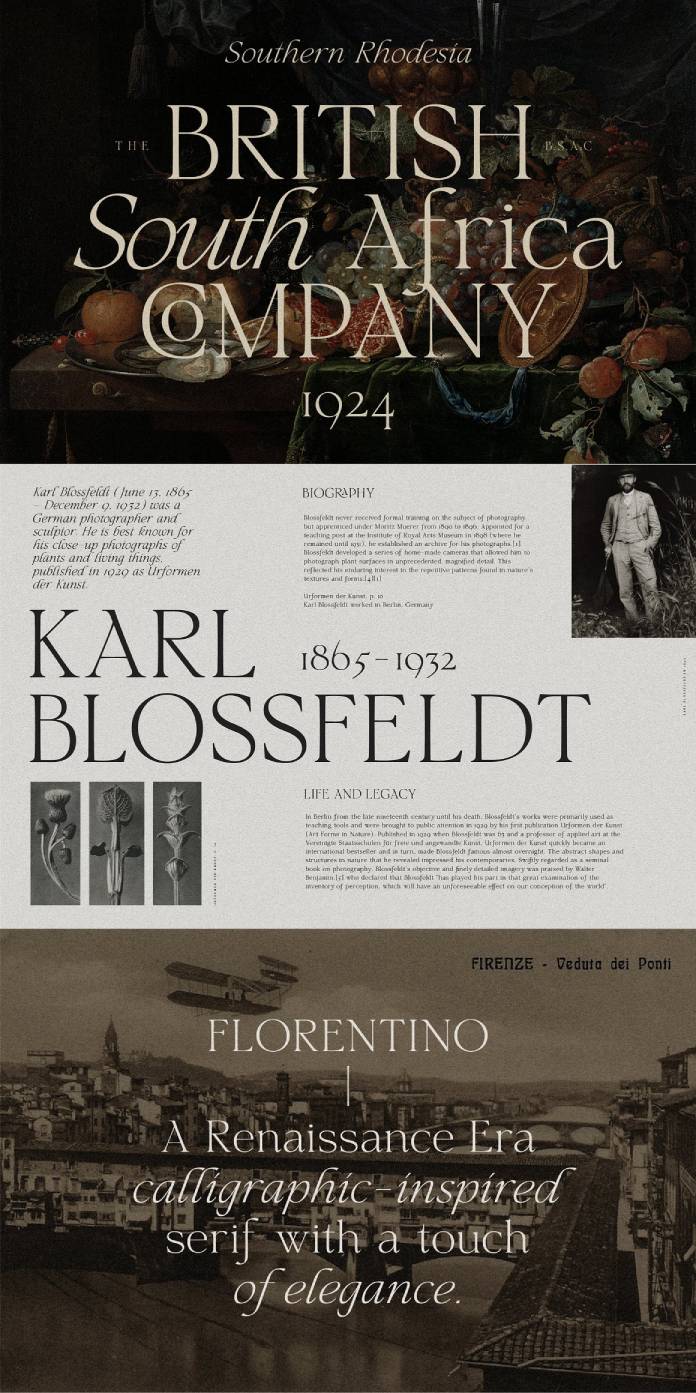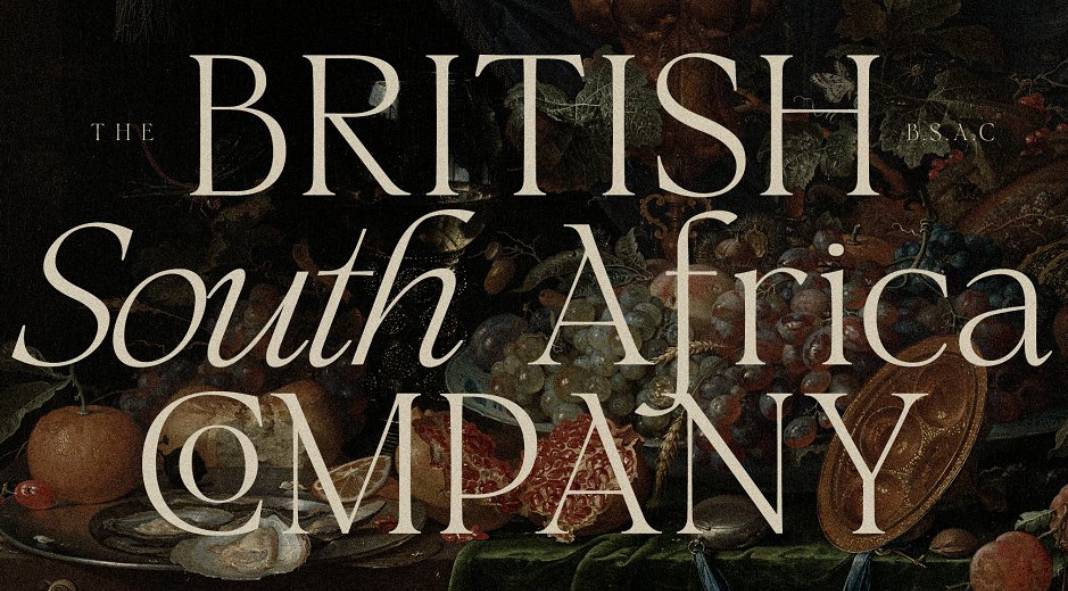
Say hello to Florentino, a classic serif font by Harmonais Visualm.
Florentino is a Renaissance-inspired calligraphic serif with a strong touch of elegance. This typeface is a great option for retro designs and everything that asks for some extra dose of elegance. You can use it for logos, packaging, editorial, and more. With the standard fonts in this pack, you can enjoy widespread compatibility with most software programs. If you want to take advantage of the comprehensive collection of custom ligatures (connected letters) featured in the script font, all that is required is a program capable of reading OpenType fonts such as Adobe Illustrator, InDesign, etc.